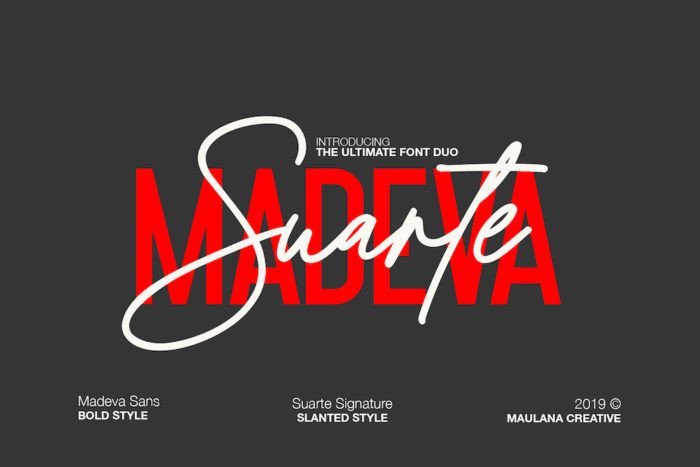
Suarte Handwritten Font
Give your designs an authentic brush handcrafted feel.”Madeva Suarte” is perfectly suited to signature, stationery, logo, typography quotes, magazine or book cover, website header, clothing, branding, packaging design and more.